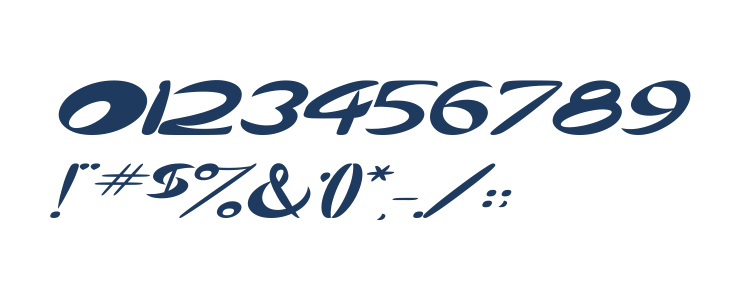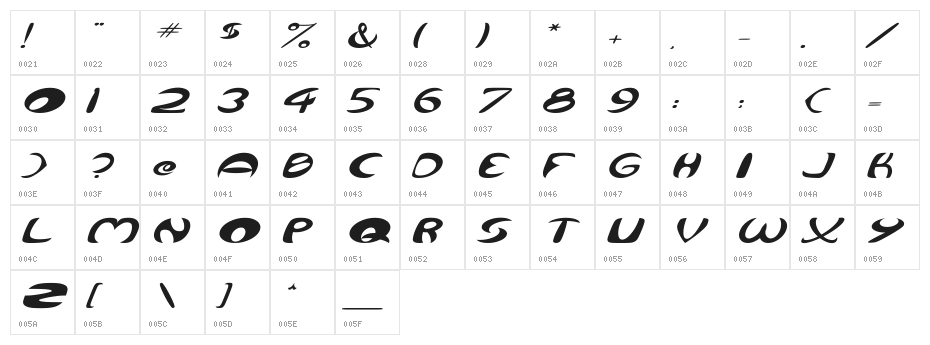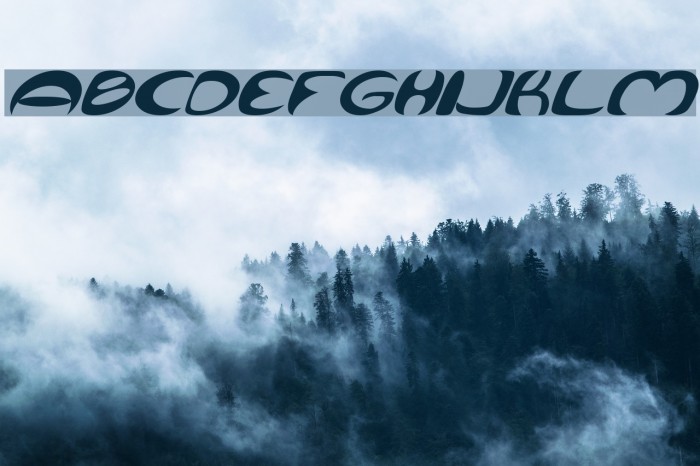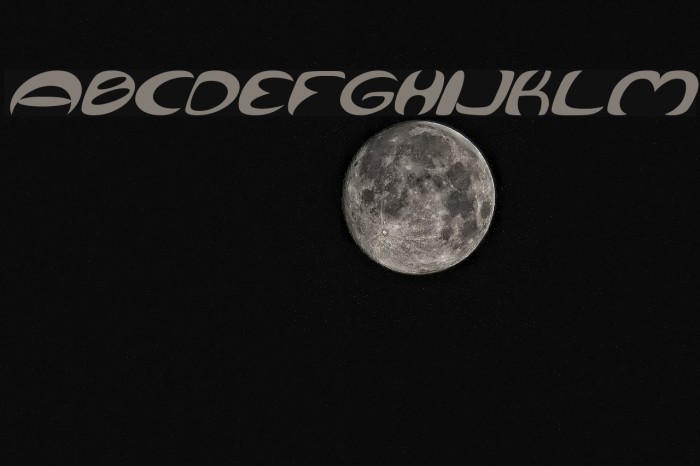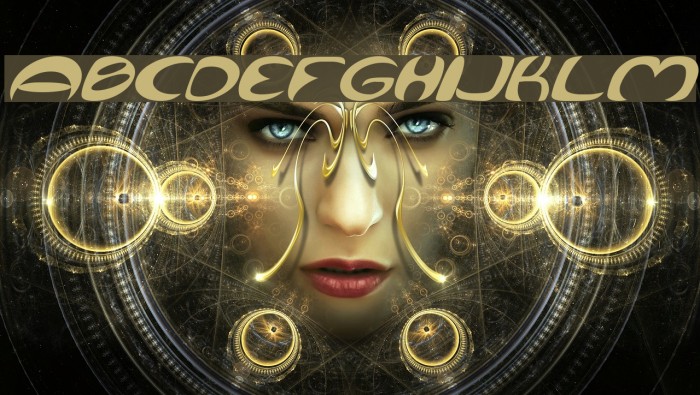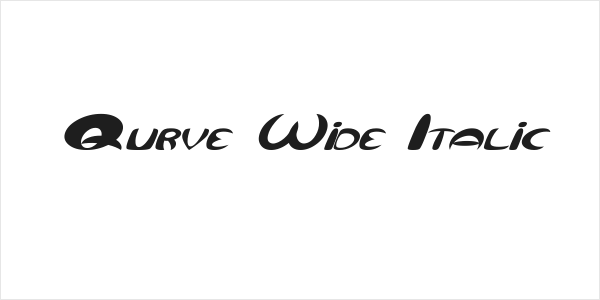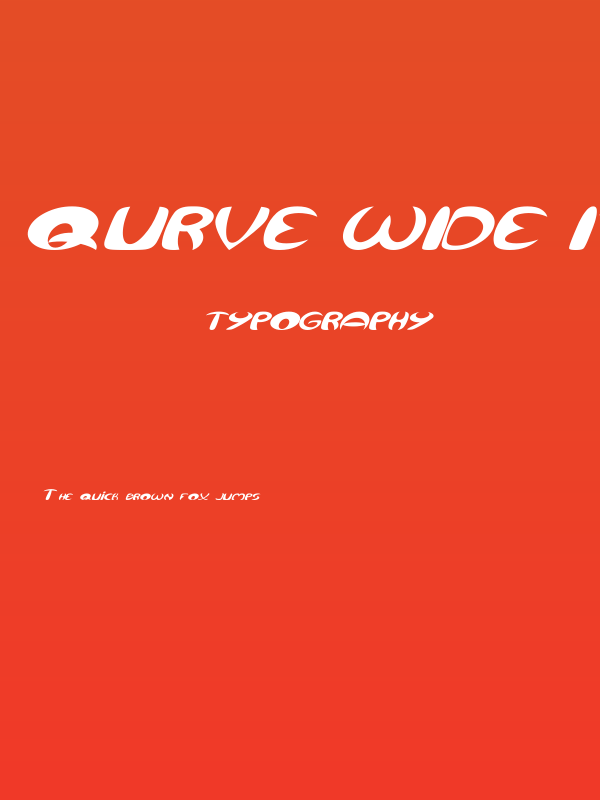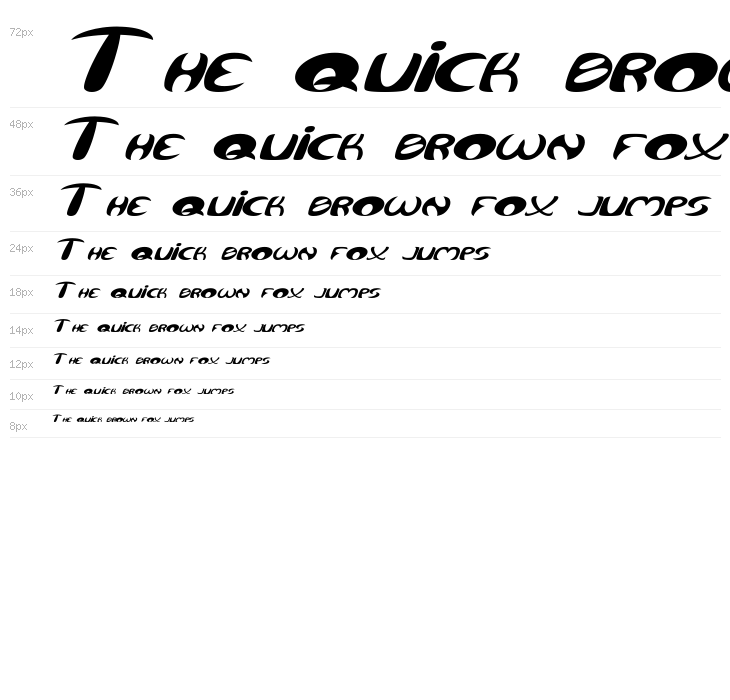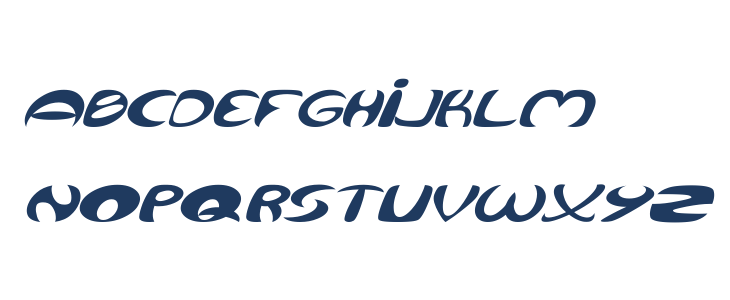
Qurve Wide Italic Font
Qurve Wide Italic Description
This font features a dynamic and flowing design with a distinctly italicized style. The characters exhibit a wide stance, giving them a bold presence on the page. The strokes are smooth and continuous, creating a sense of movement and energy. Each letter is crafted with a unique curvature, adding a touch of elegance and modernity. The numerals and special characters maintain the same fluidity, ensuring consistency across all elements. This font is ideal for projects that require a stylish and contemporary look.